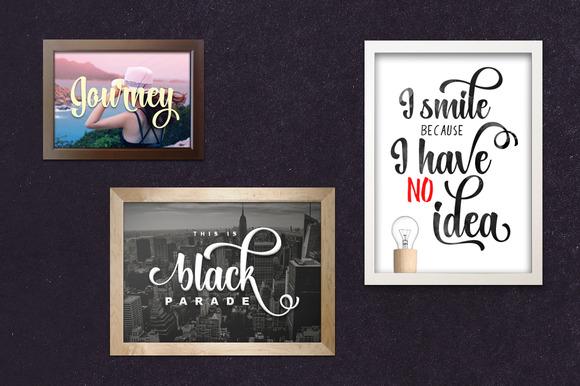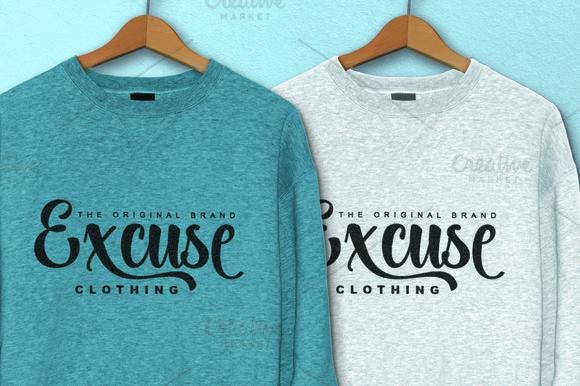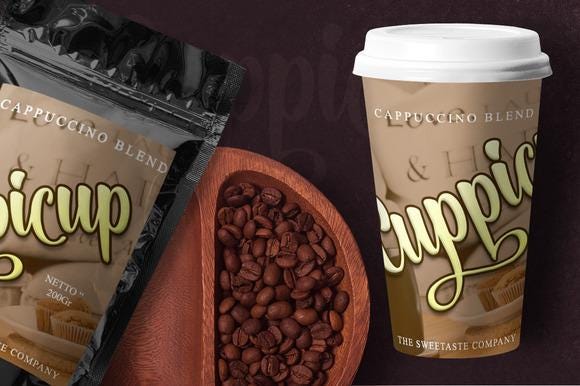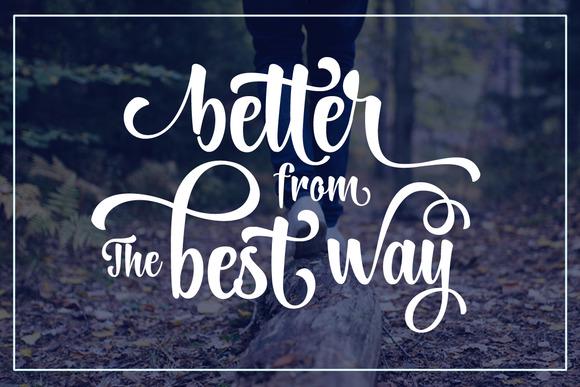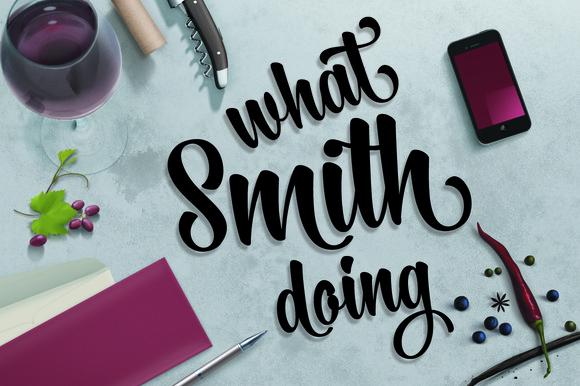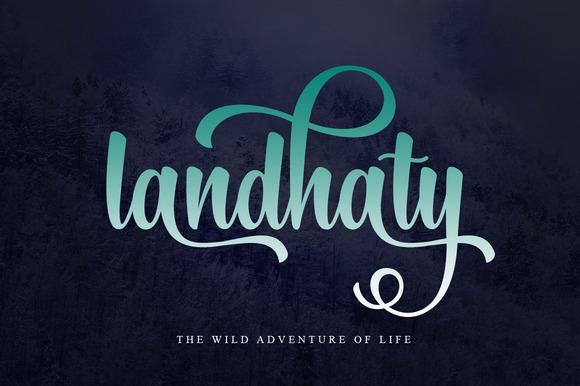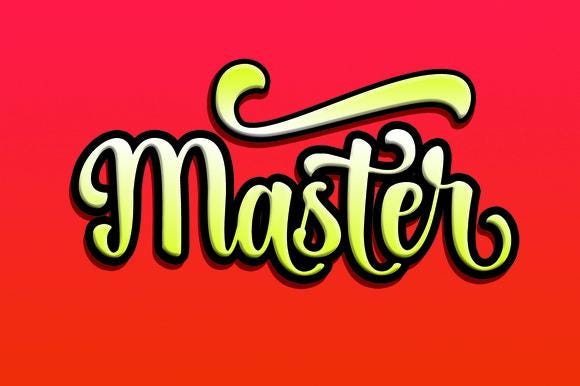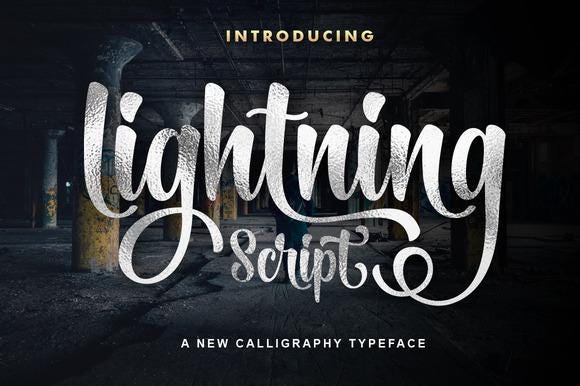
Lightning Script Font
The Lightning Script font is a stunning work of art. This beautiful handwritten typeface is great for adding a personal touch to your designs. This stunning font looks great on branding materials, signs & invitations, business cards, and more!